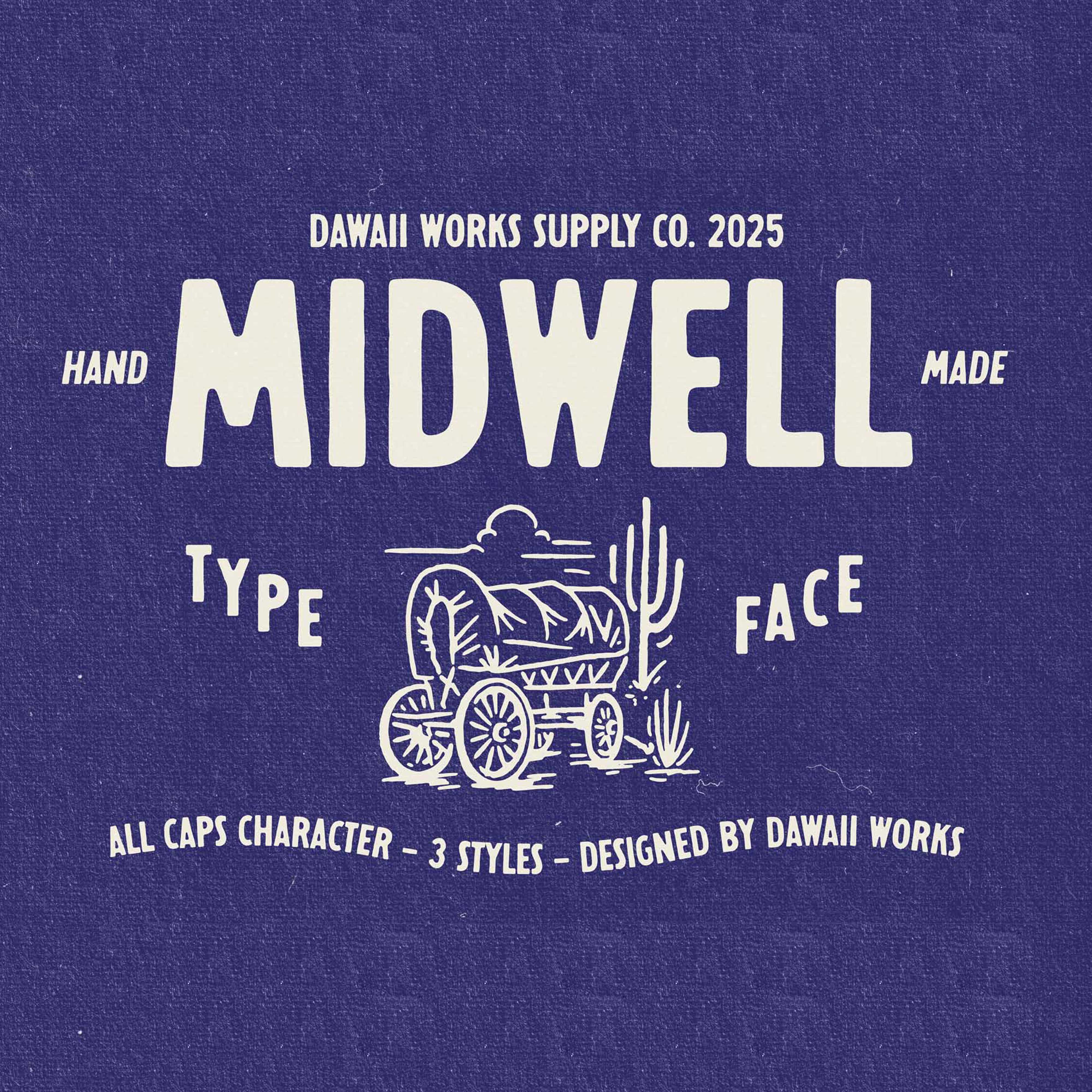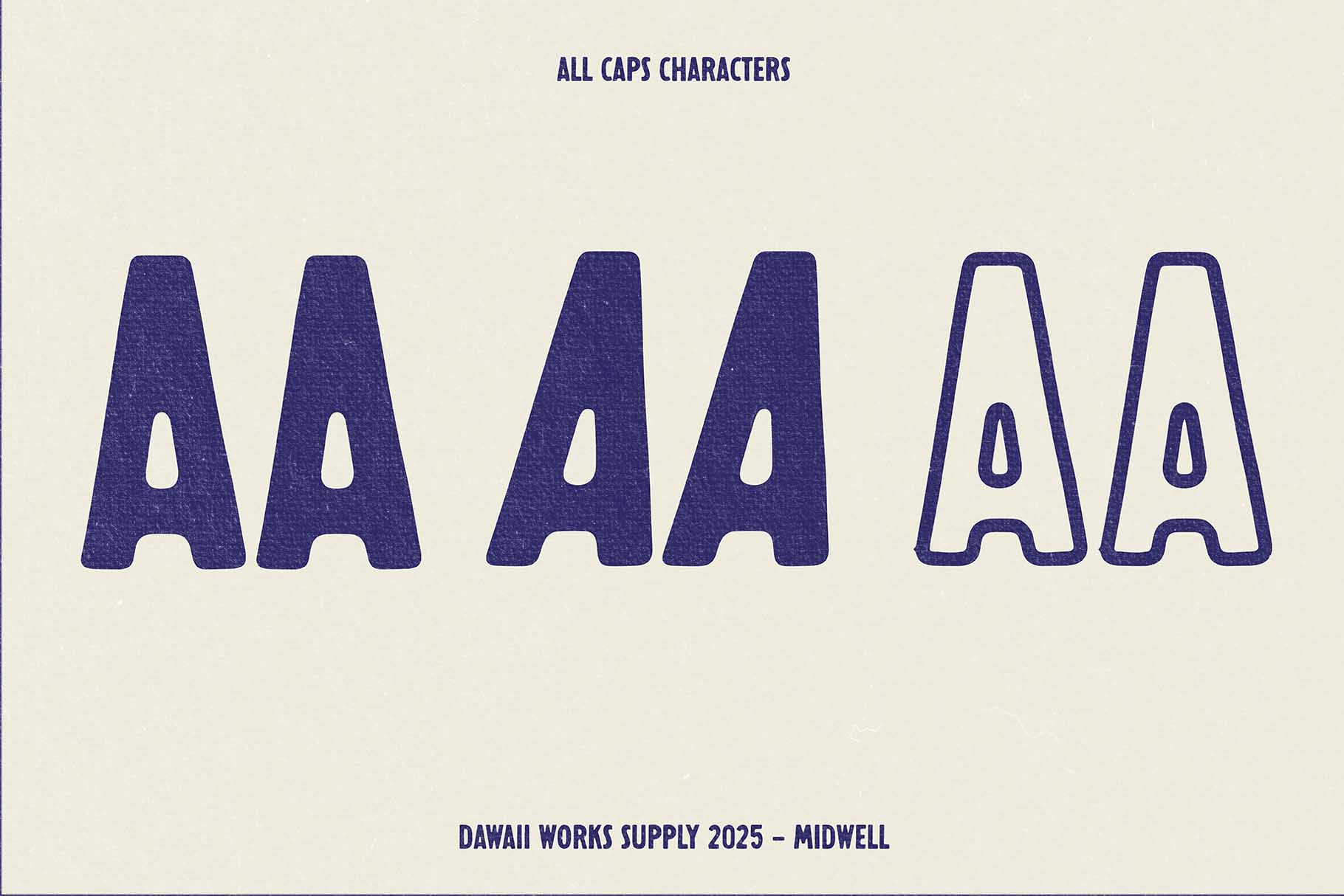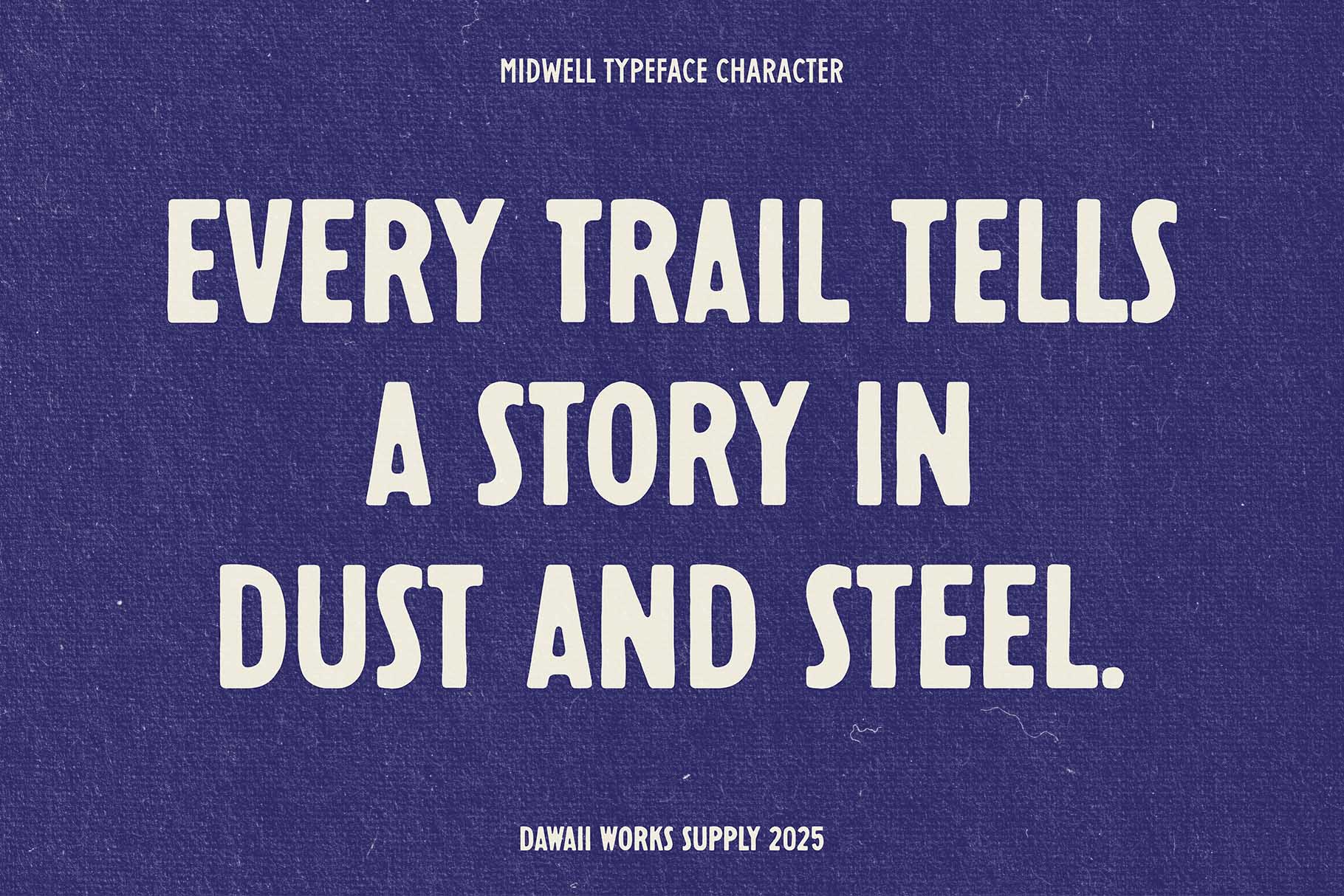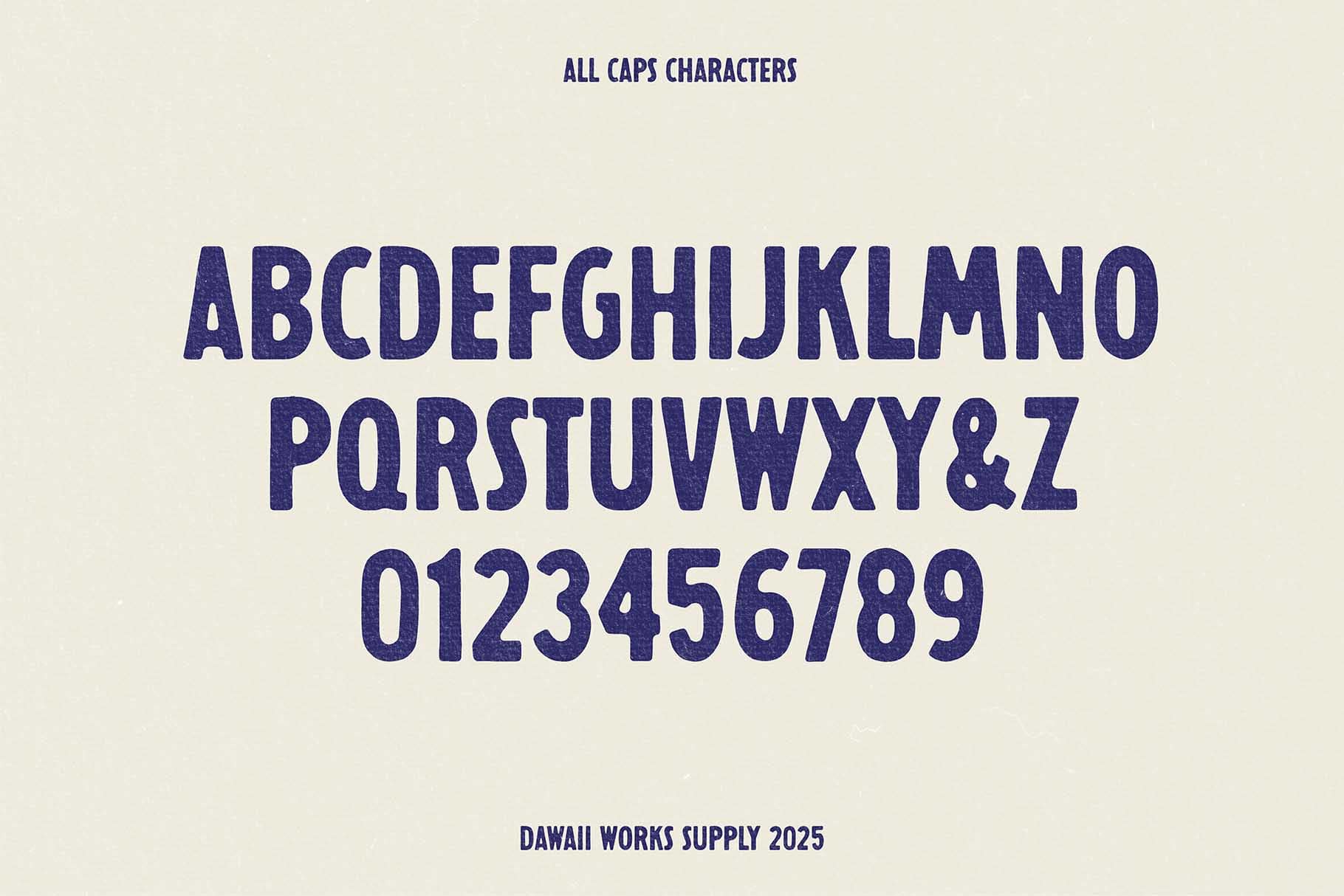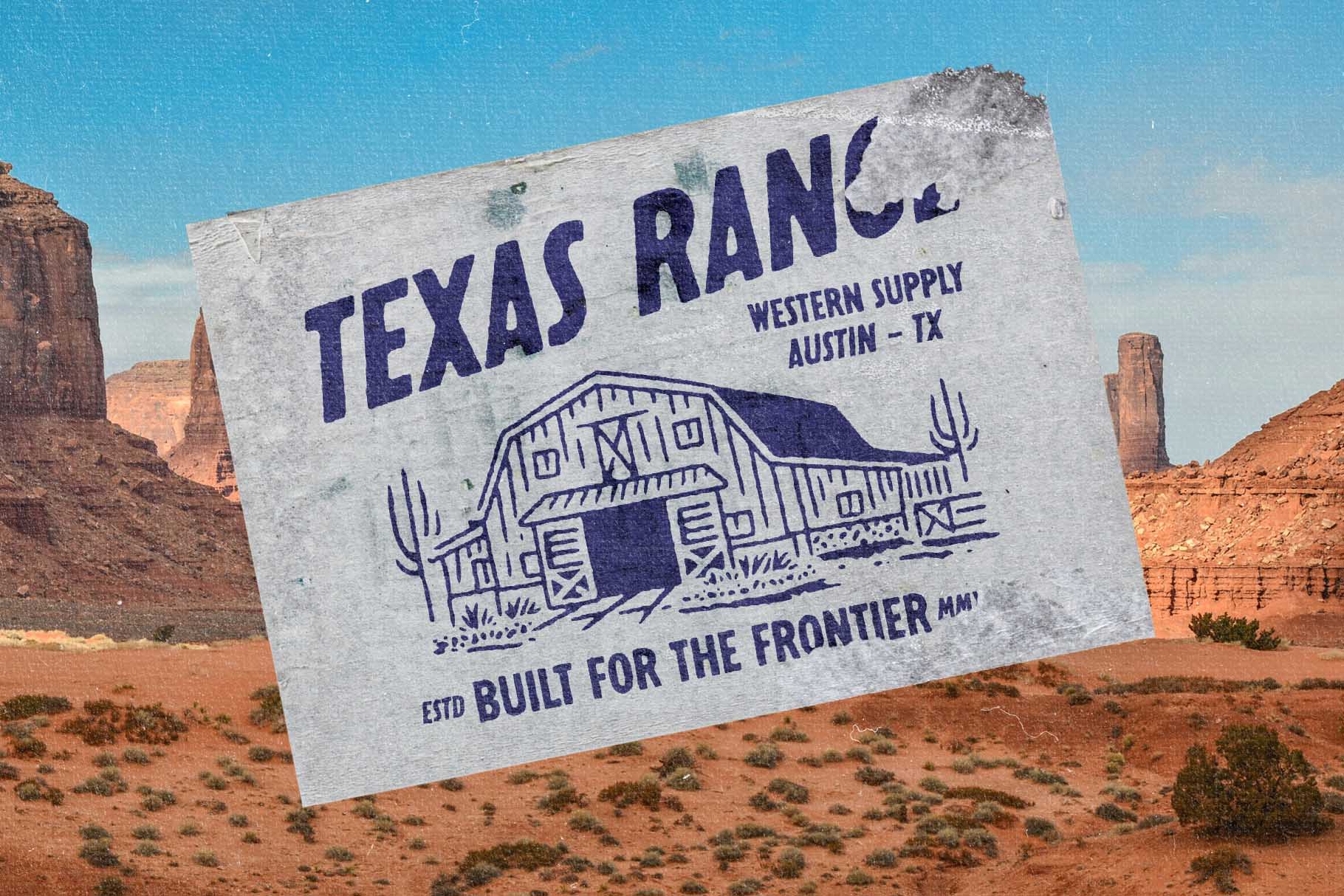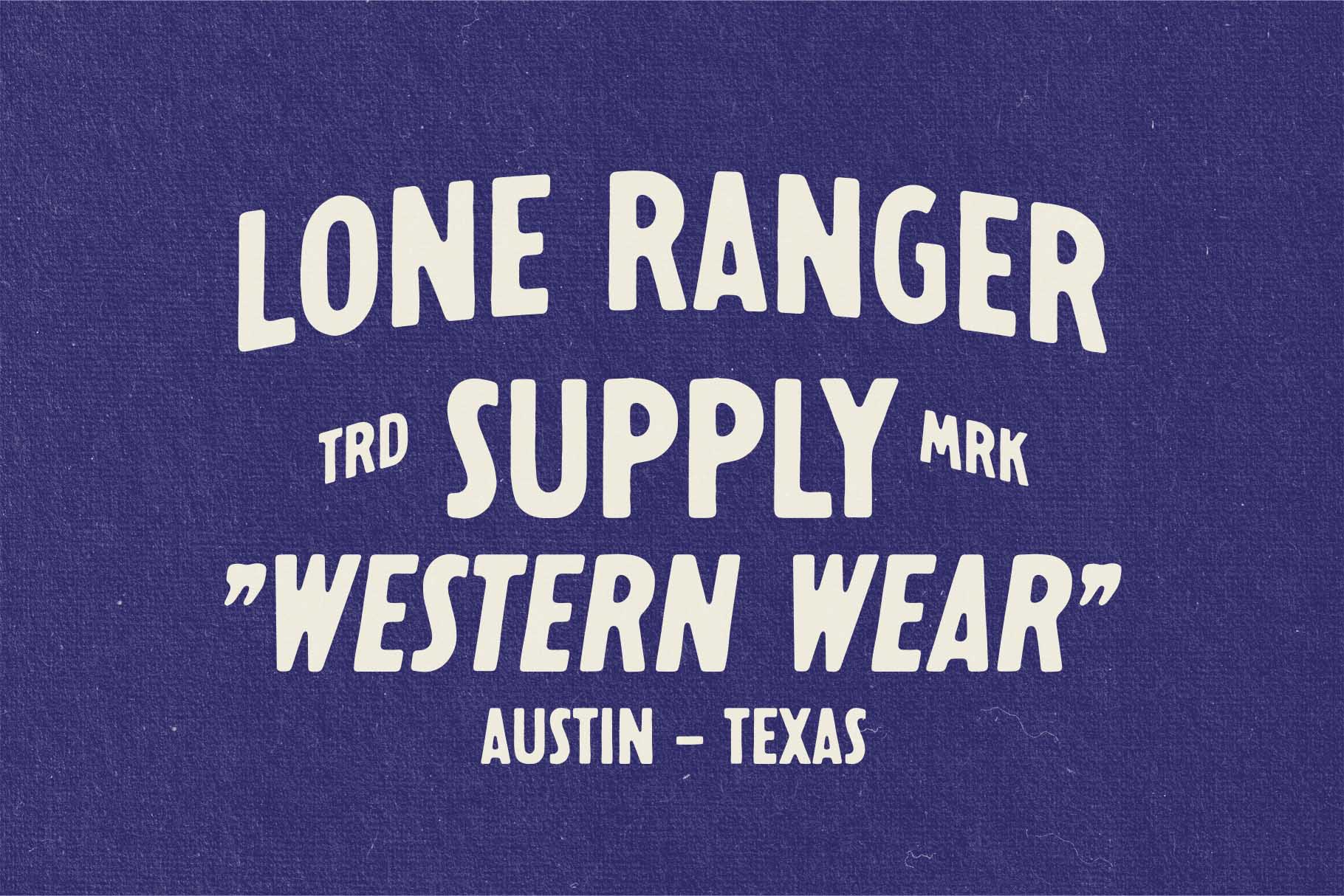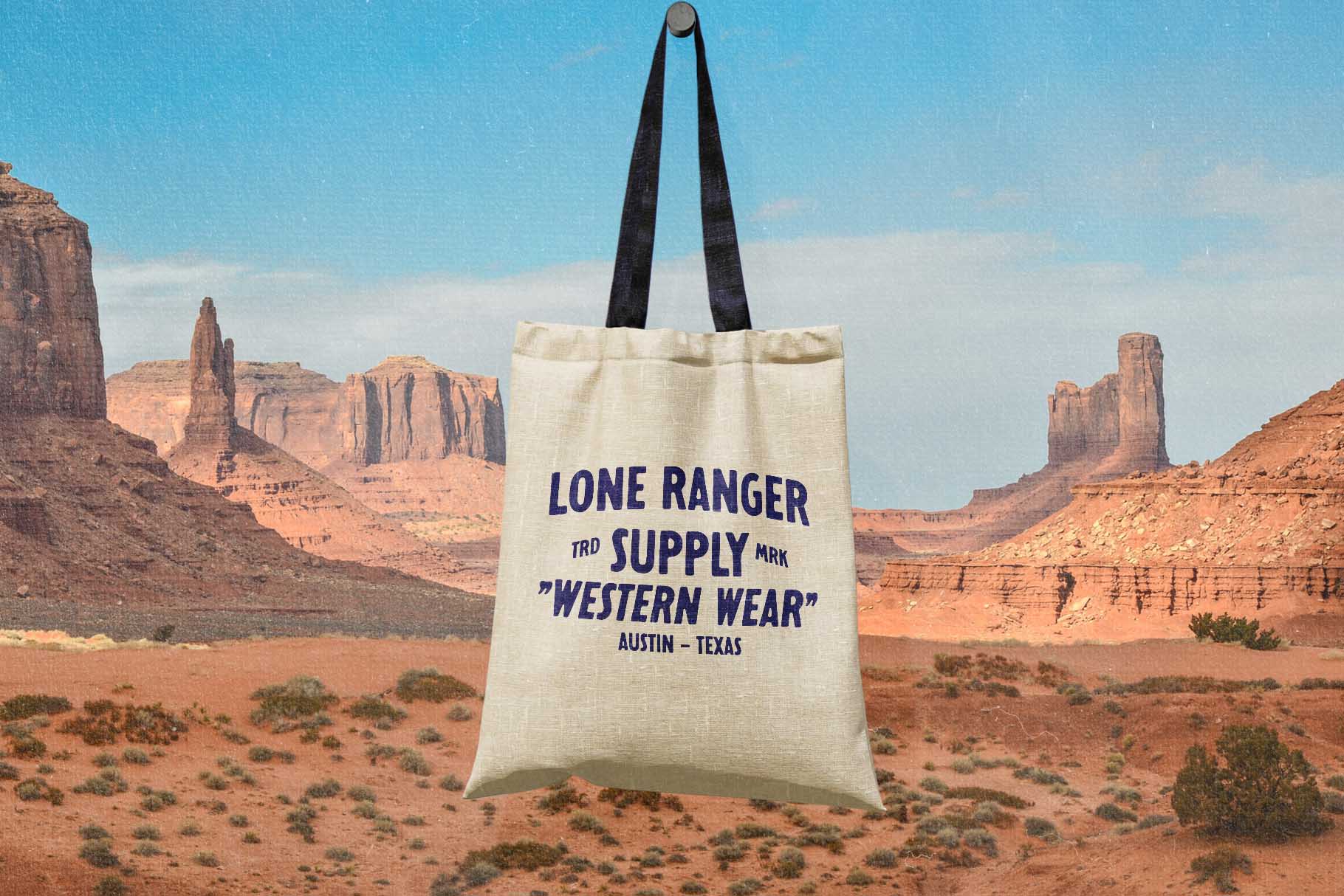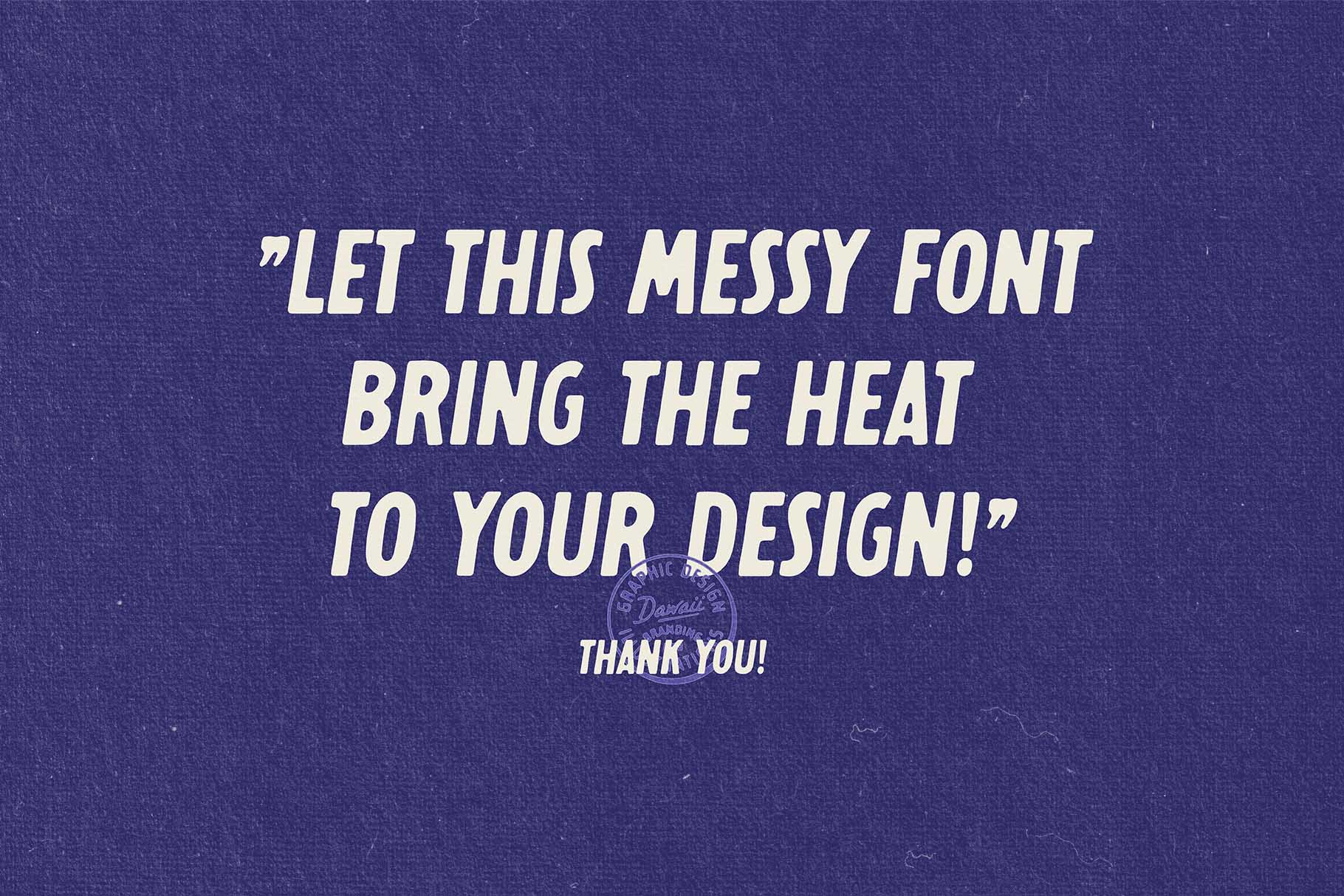
Midwell Typeface
Midwell is a vintage-inspired sans serif font inspired by old travel posters and classic ephemera. It comes in three styles — Regular, Italic, and Outline (.otf) — perfect for logos, packaging, posters, and apparel designs. Simple, versatile, and easy to remember, Midwell brings a touch of timeless adventure to any project. If you have any issues or questions, please contact dawaiistd@gmail.com
Midwell is a vintage-inspired sans serif typeface available in three styles: Regular, Italic, and Outline (.otf). Designed with influences from old travel posters and classic ephemera, it offers a simple and versatile option for various design projects.